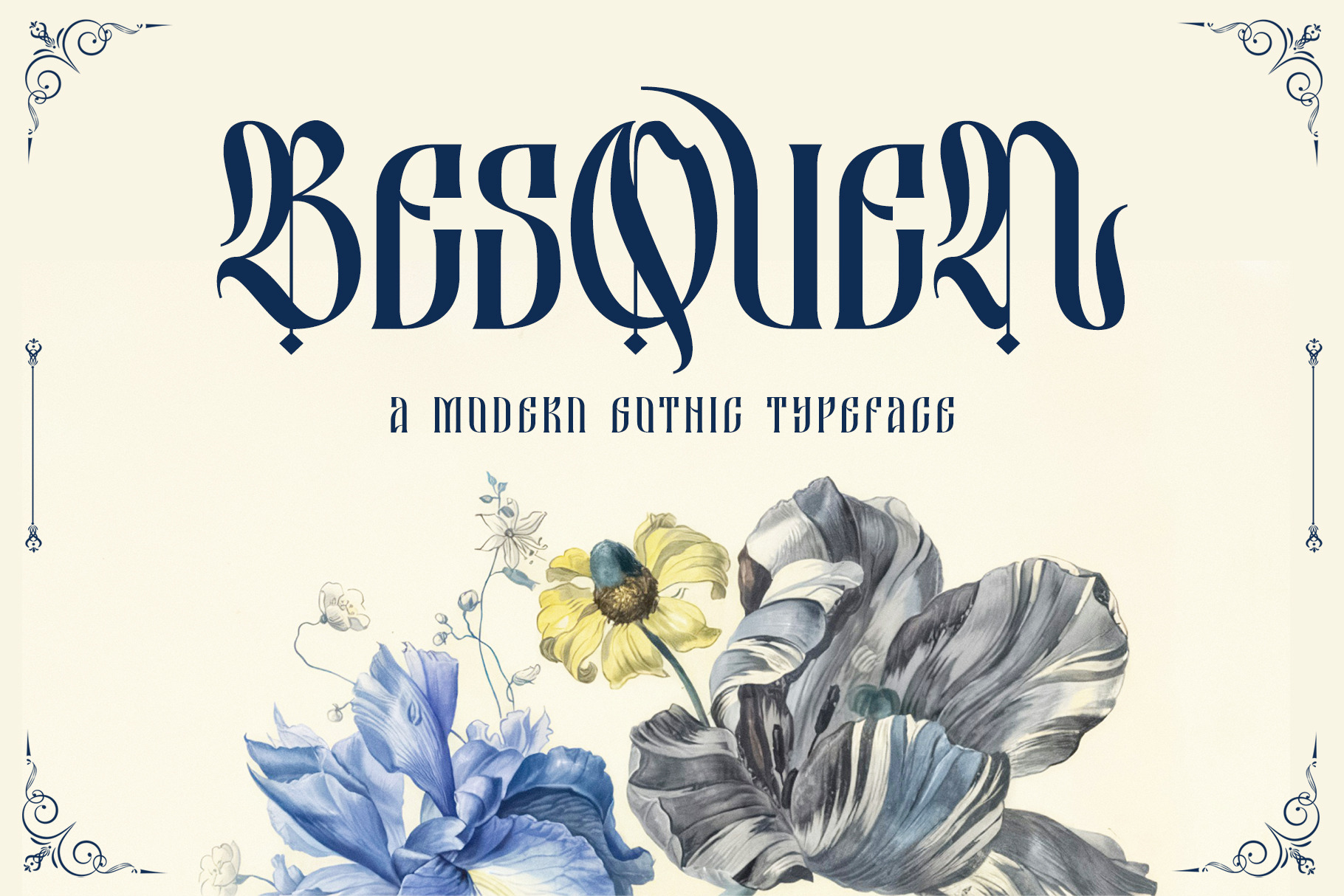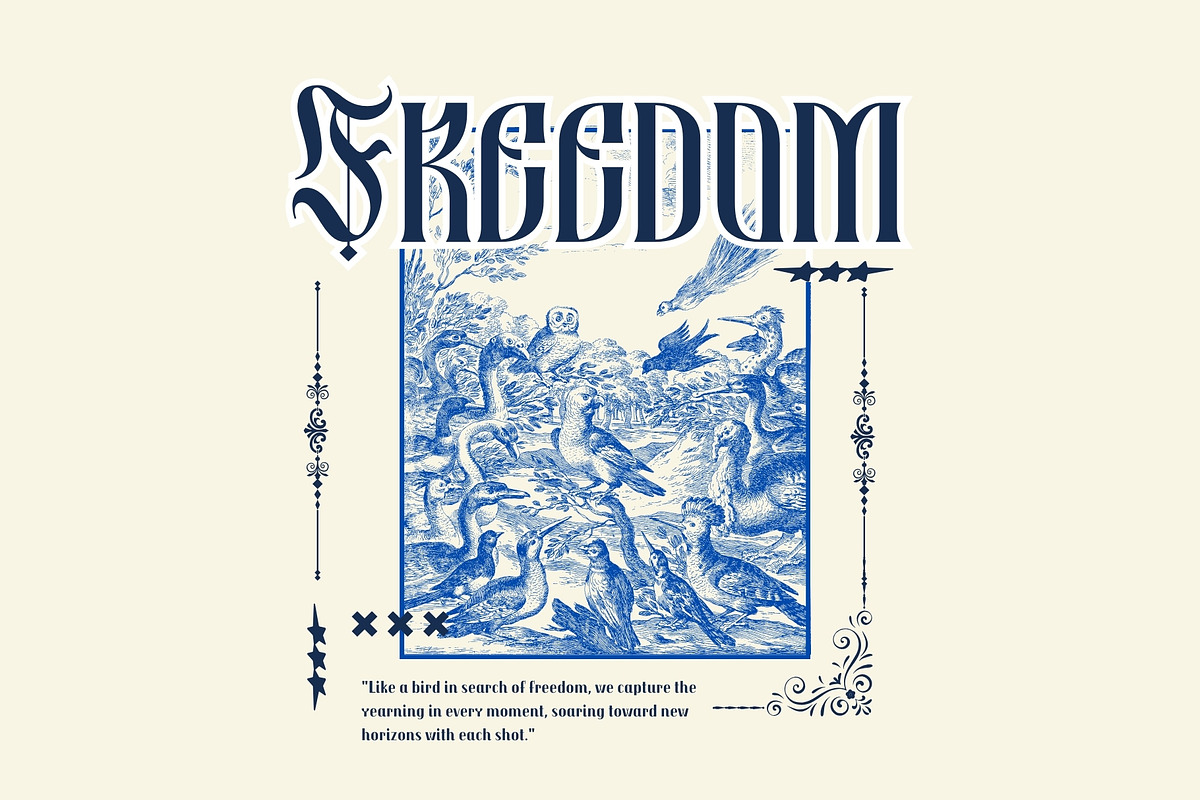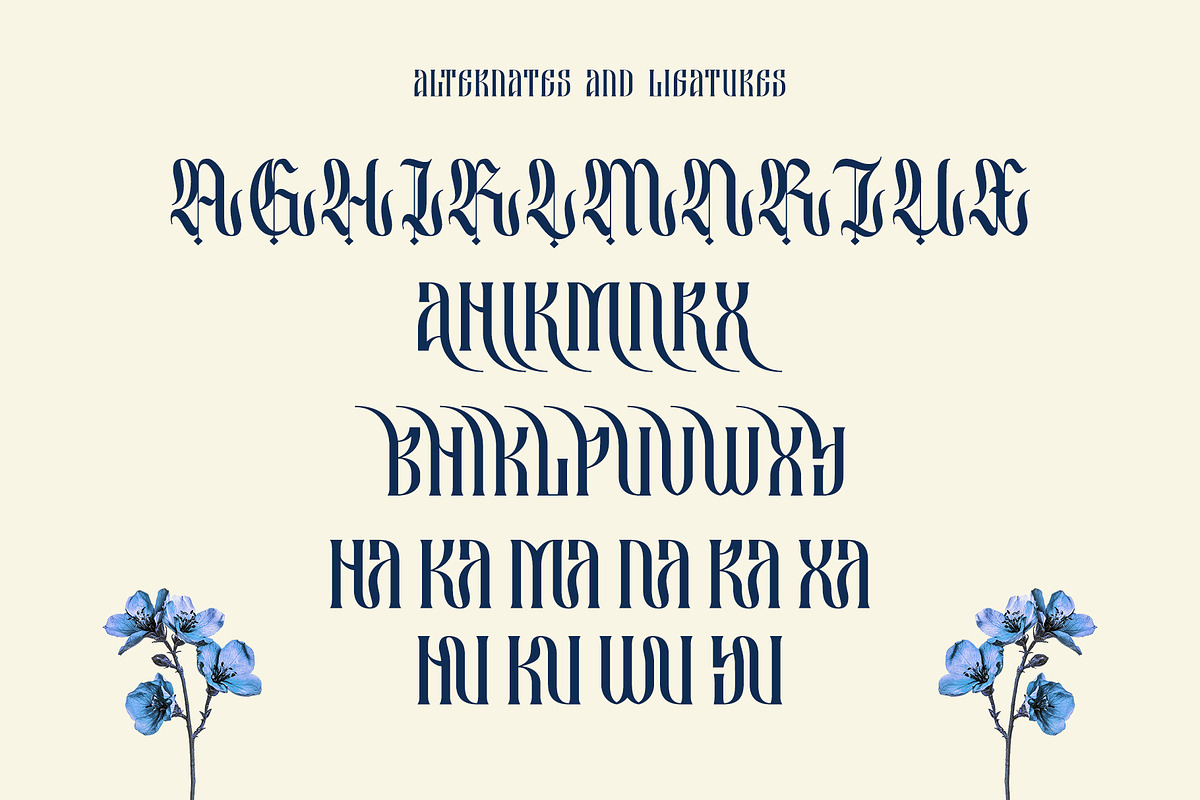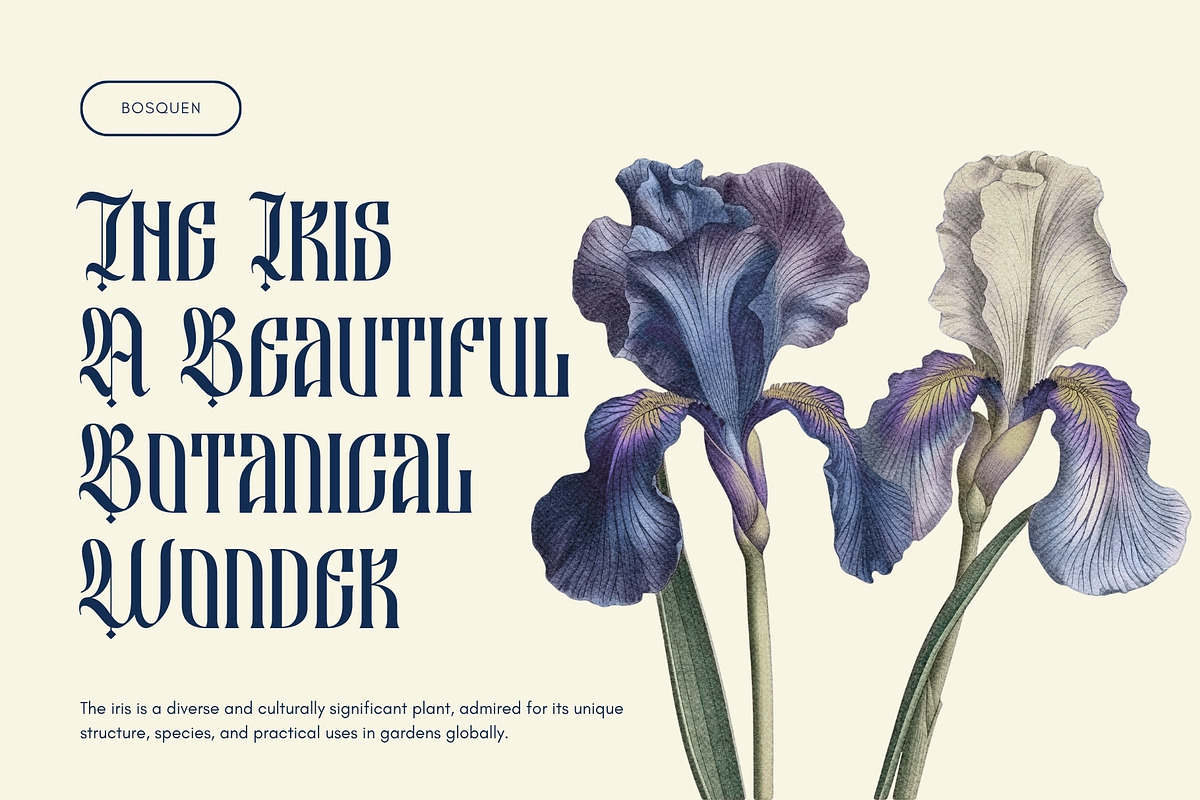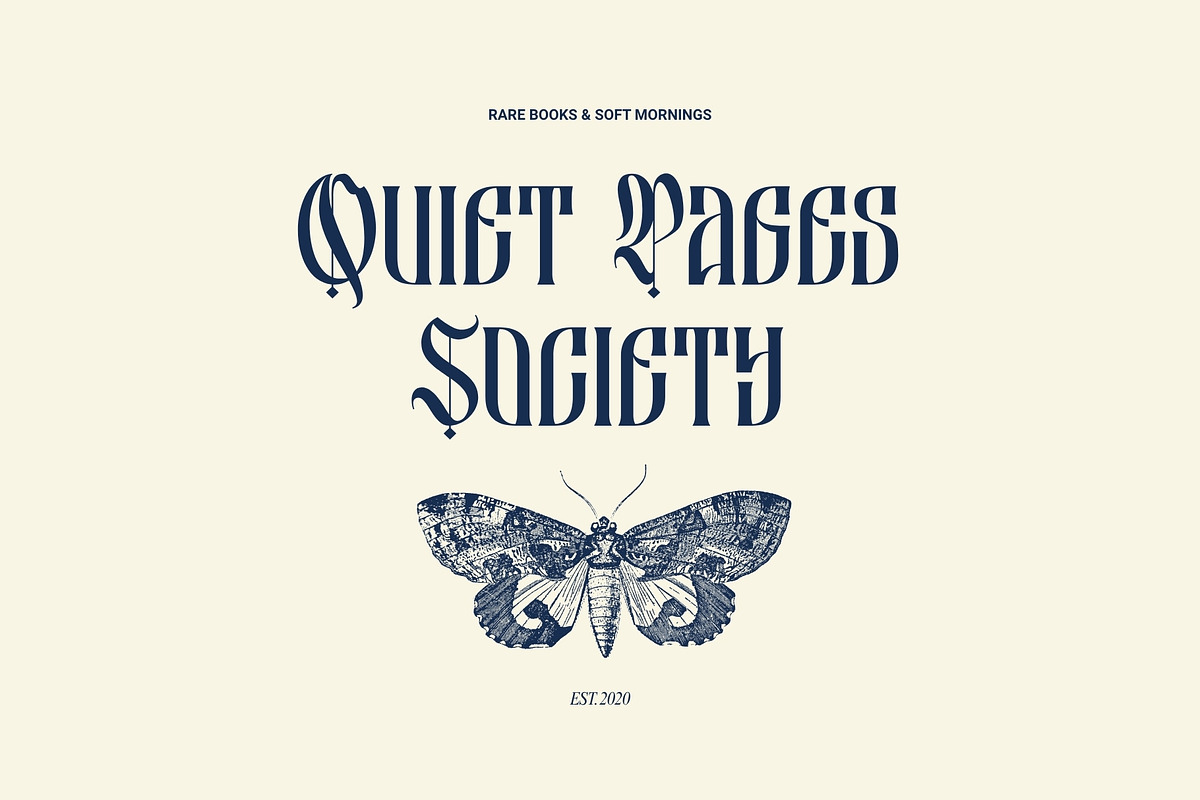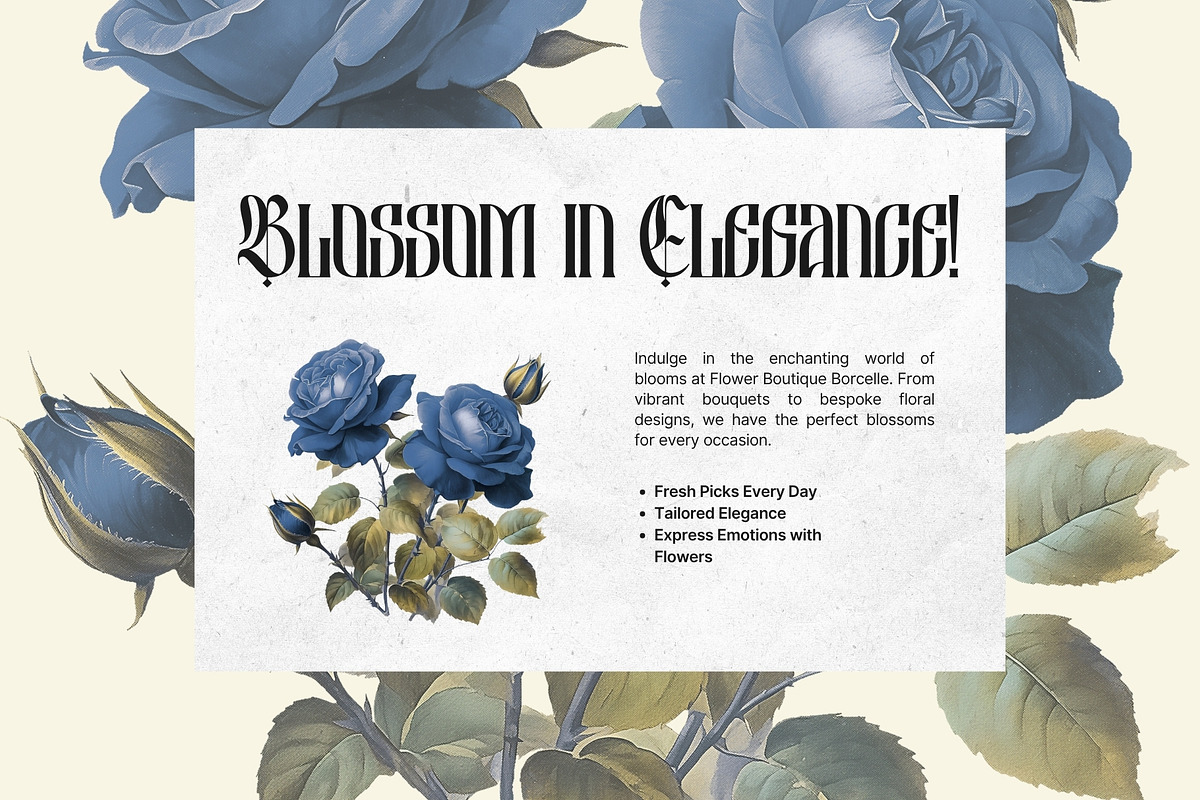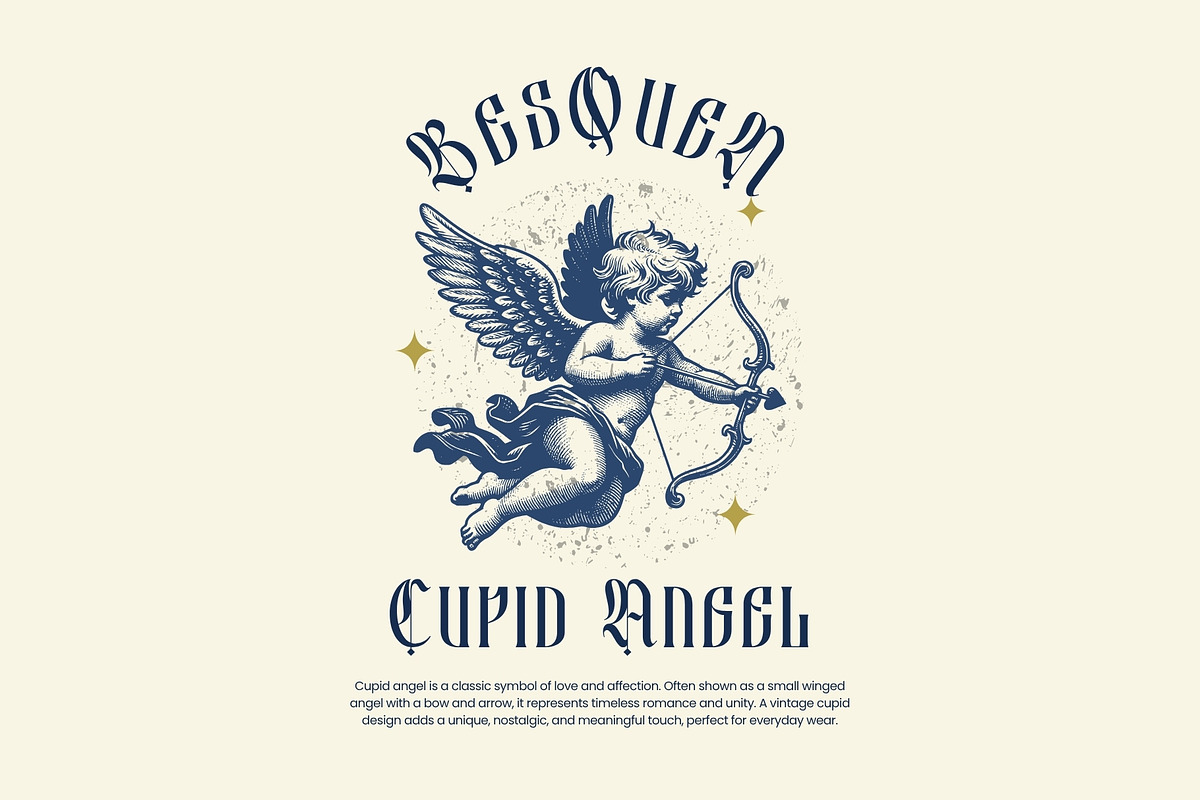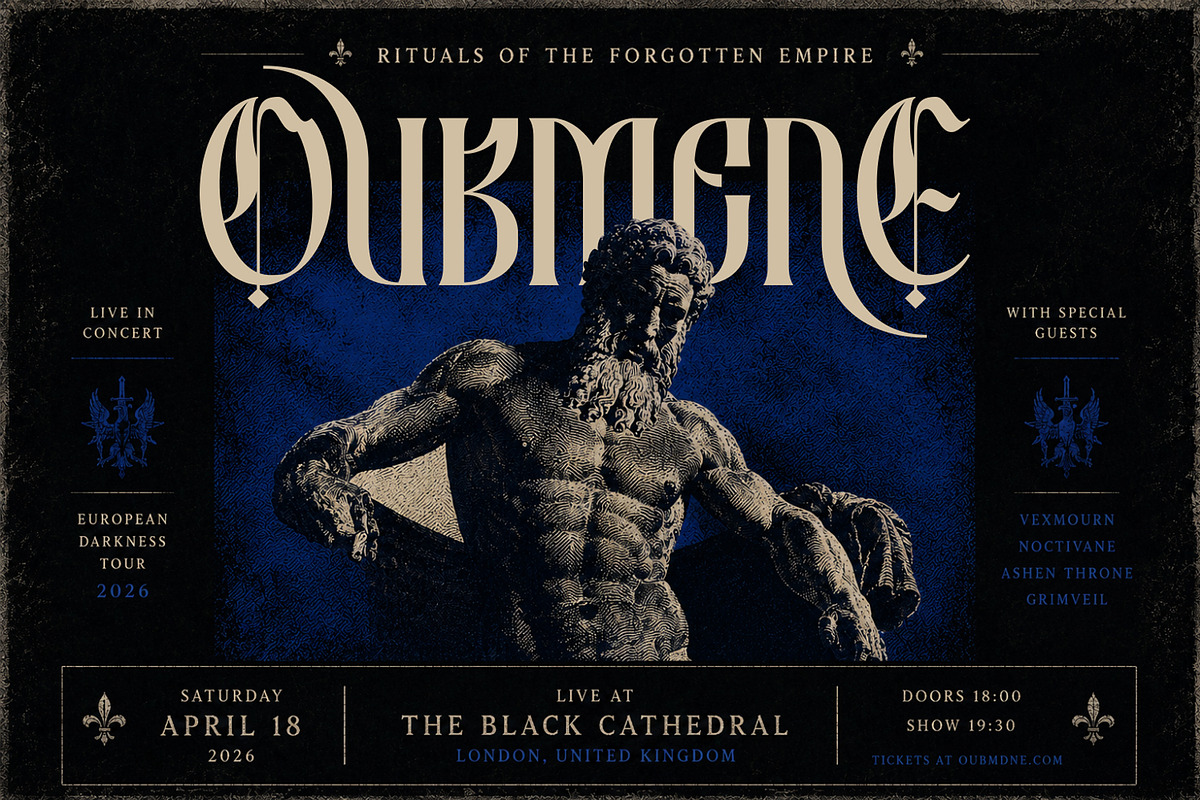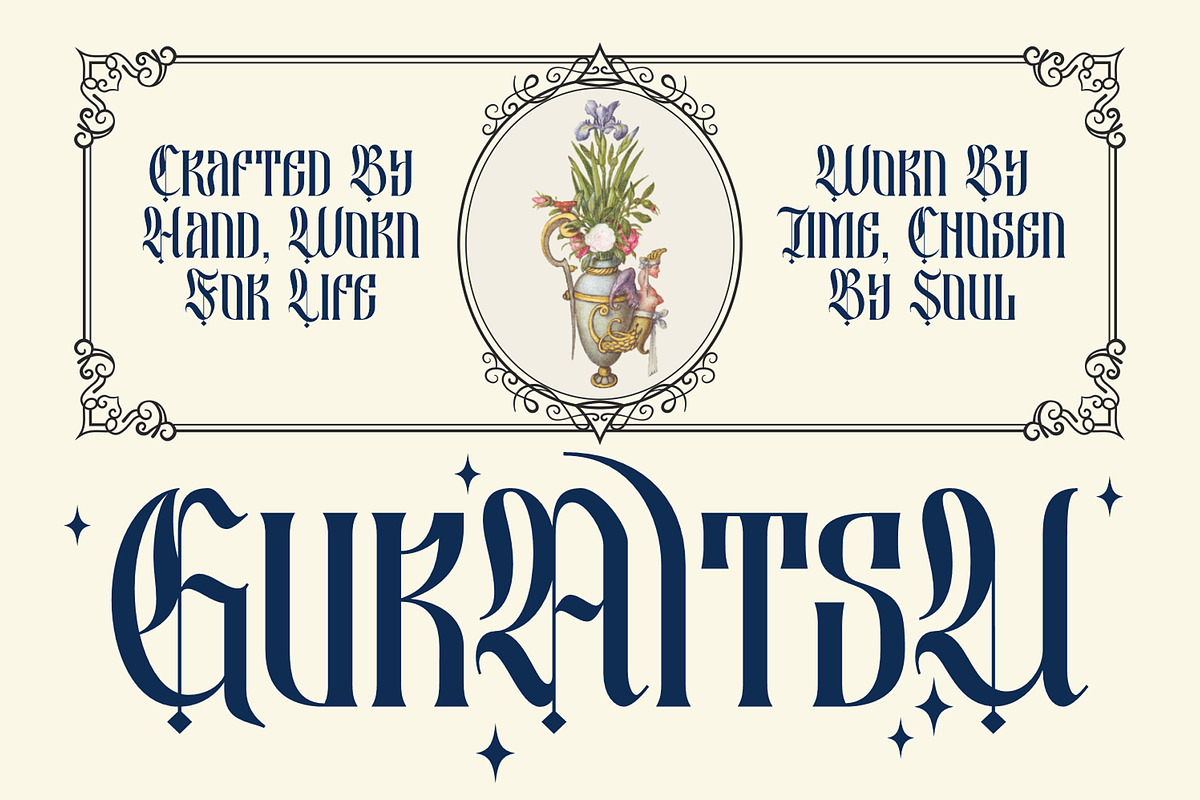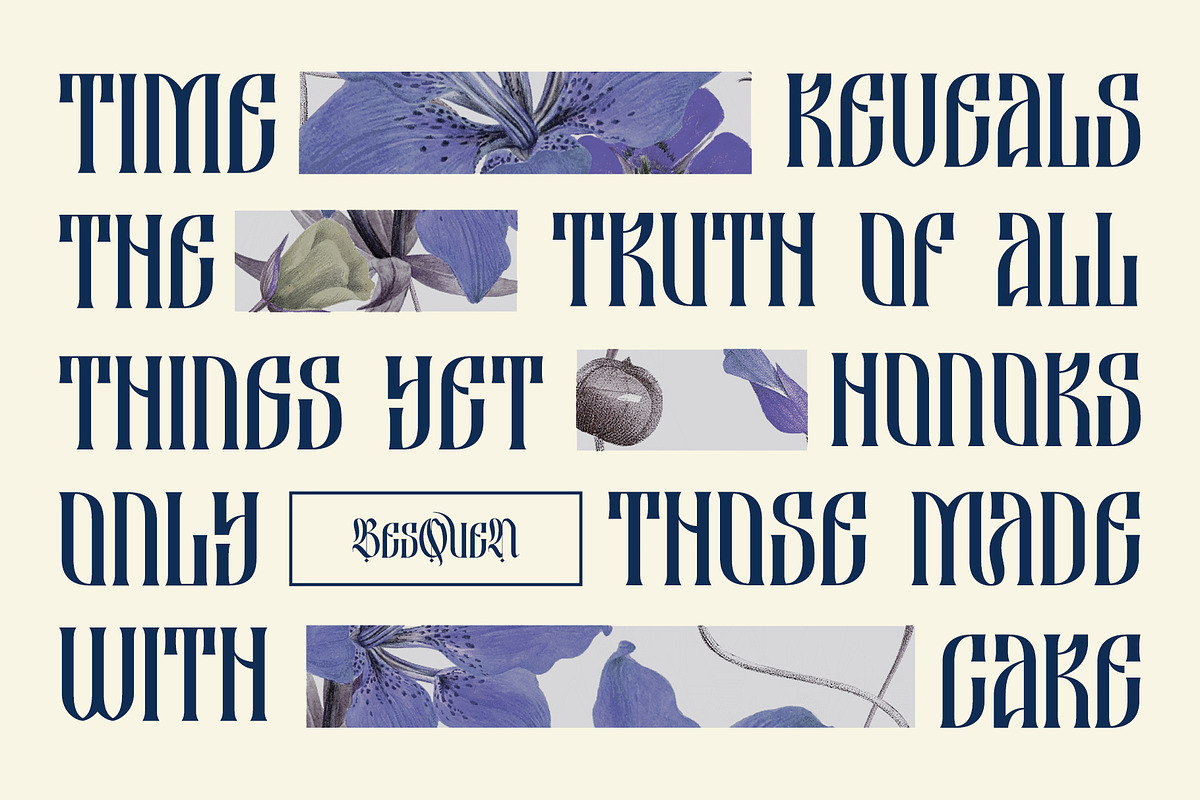
Besquen Modern Gothic Typeface
Besquen is a refined modern gothic typeface that blends classic blackletter inspiration with contemporary elegance. Designed with dramatic curves, sharp ornamental strokes, and stylish vertical contrast, Besquen delivers a luxurious medieval aesthetic while remaining highly readable for modern branding and editorial design.
This sophisticated gothic font is perfect for logos, fashion branding, album covers, packaging, book titles, tattoo-inspired artwork, posters, wedding invitations, and luxury product designs. Its decorative letterforms create a bold visual identity that feels both timeless and artistic. The unique balance between vintage blackletter tradition and minimalist modern styling makes Besquen ideal for designers seeking a distinctive and premium typography experience.
Besquen works beautifully in high-end creative projects, especially those requiring an elegant dark aesthetic, gothic atmosphere, or historical-inspired visual appeal. Whether used for branding, headline typography, or artistic compositions, this font adds character, mystery, and sophistication to every design.